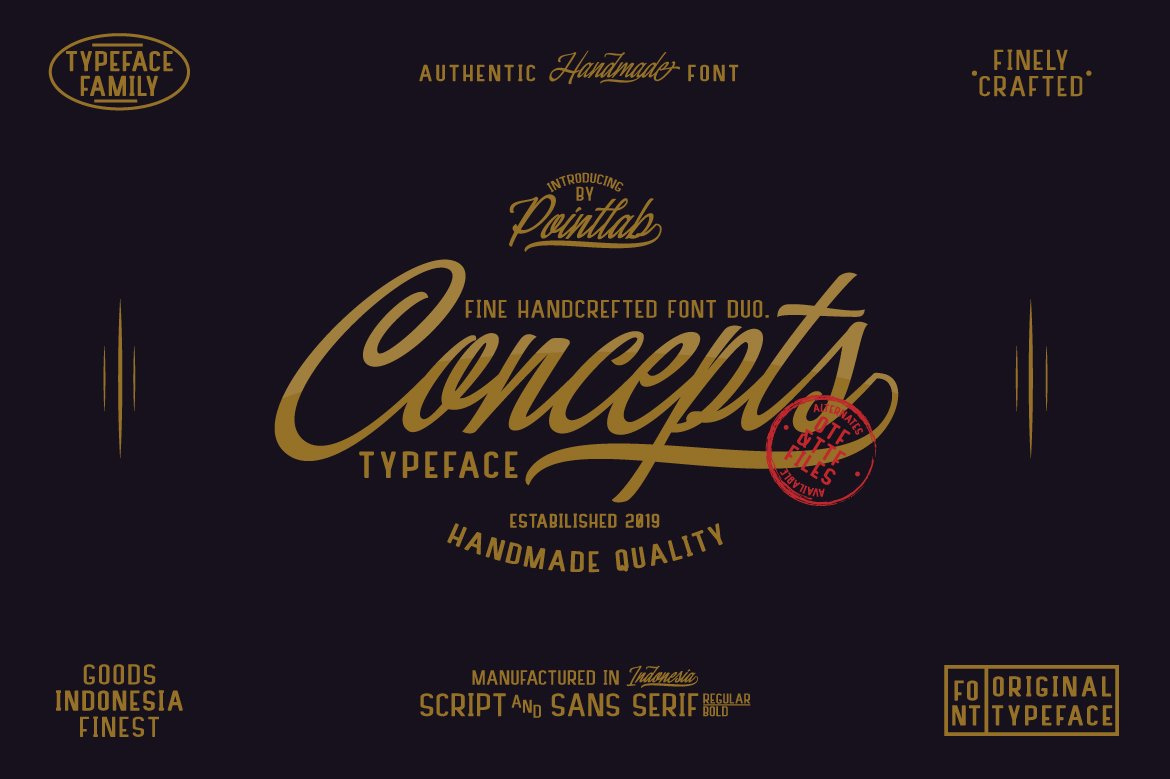
Concepts Font Family
Concepts Font Family is perfect for innovative design agencies, creative brainstorming materials, conceptual art projects, ideation workshop communications, startup pitch presentations, design thinking applications, creative studio branding, and visionary advertising campaigns. This intellectual typeface collection works exceptionally well in both digital applications and print media where creative thinking and conceptual innovation are fundamental design requirements.
What makes Concepts Font Family so exciting is its masterful interpretation of ideation and creative thinking through systematically designed letterforms that embody the clarity and structure needed to transform abstract ideas into tangible solutions. The font features intelligent characters with conceptual proportions, innovative spacing, and thoughtful details that communicate creative intelligence, systematic innovation, and the methodical approach of design thinking processes. Its intellectual personality and creative heritage make it ideal for brands seeking to establish leadership in innovation sectors while appealing to audiences who value creative problem-solving, systematic thinking, and the transformative power of well-executed ideas.
The Concepts Font Family includes comprehensive stylistic variations across multiple weights and styles, along with innovative alternates and creative ornamental elements. Each typeface within the family maintains the collection's intellectual character while offering extensive multilingual support, systematic numerals, innovation-focused punctuation marks, and special symbols designed to enhance creative communications and conceptual branding efforts across various intellectual contexts.
This remarkable typeface collection represents the perfect convergence of creative methodology and contemporary typography for design and innovation industries. Whether you're developing creative agency identities, building design thinking workshops, or creating innovation consulting materials, Concepts Font Family Free Download delivers the intellectual clarity and versatility needed for successful creative communications. The font family's systematic approach makes it particularly effective for design studios, innovation consultancies, creative education, and organizations prioritizing structured creativity and systematic innovation processes.
The meticulously engineered conceptual construction and optimized creative performance in Concepts Font Family ensure maximum ideation impact while maintaining clear communication across all creative applications. Its intellectual versatility allows seamless coordination between different family members within comprehensive projects, making it an invaluable foundation for creative systems requiring both systematic thinking and innovative visual expression for audiences seeking breakthrough solutions.